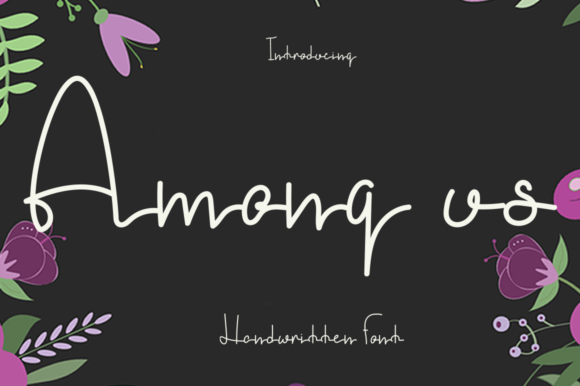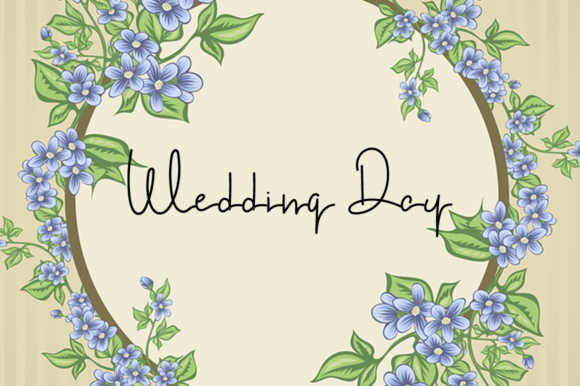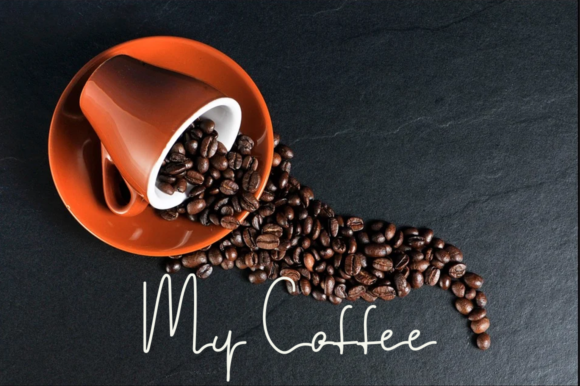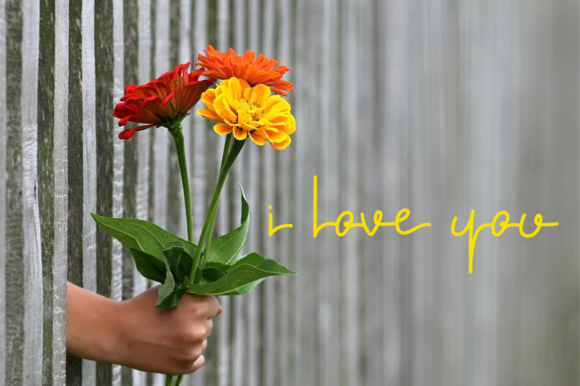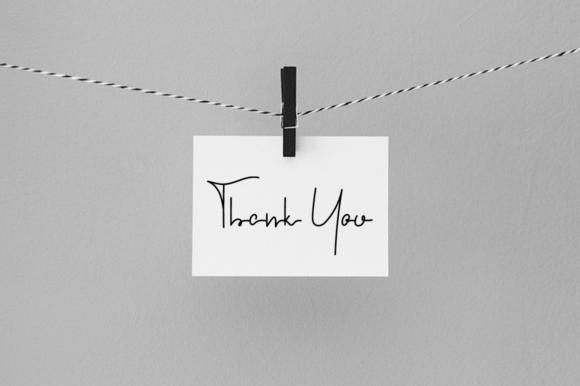
Among Us Font
About Among Us Font
Among Uss is a simple, thin and sweet handwritten font. Incredibly versatile, this font fits a wide pool of designs, elevating them to the highest levels.